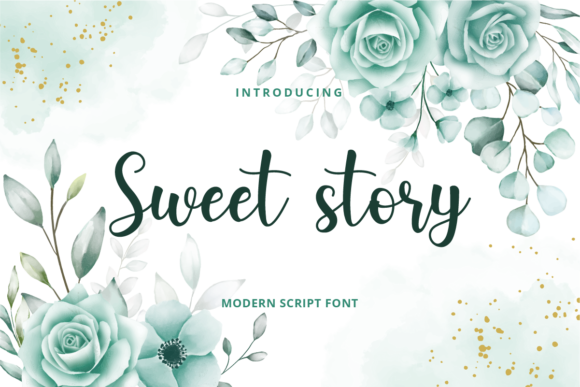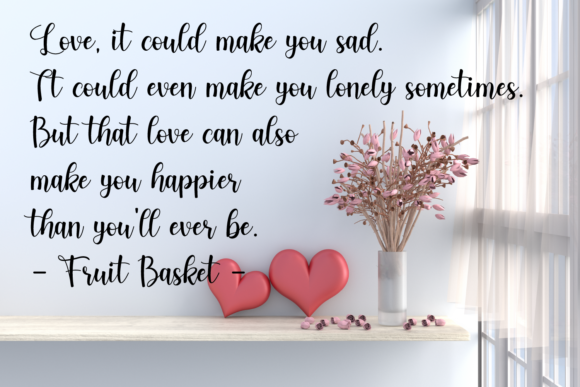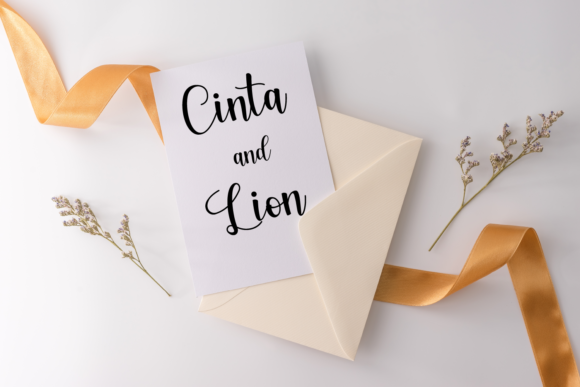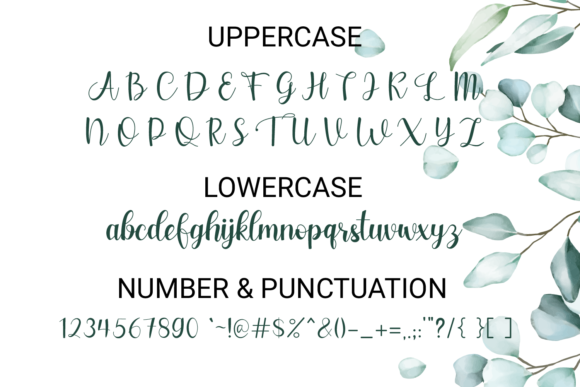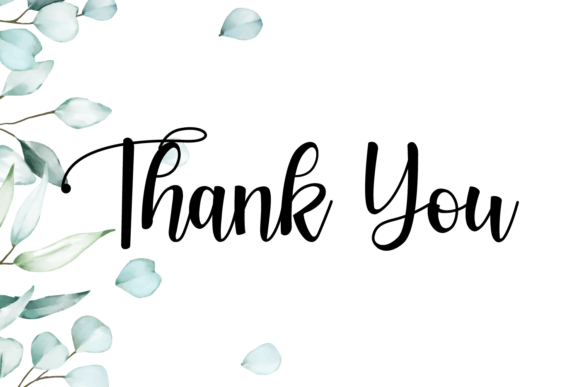
Sweet Story Font
About Sweet Story Font
Introducing “Sweet Story,” a delicate, elegant, and gracefully flowing handwritten font that will steal your heart with its beauty. Its charming style and well-balanced characters make it a perfect match for a wide variety of design projects. As you add “Sweet Story” to your most creative ideas, prepare to witness how it breathes life into them, turning them into captivating works of art!
The font’s delicate and flowing strokes give it a sense of refinement and sophistication, making it a perfect choice for elegant designs. Whether you’re working on wedding invitations, creating custom logos, or designing branding materials, “Sweet Story” adds a touch of grace and charm that elevates your work to a whole new level of beauty.
Embrace the versatility of “Sweet Story,” as it seamlessly complements various design styles and themes. From modern and minimalist to romantic and vintage, this font adapts effortlessly to your vision, adding a touch of elegance that sets your designs apart.
The beauty of “Sweet Story” lies not only in its aesthetics but also in its readability. Its well-crafted characters ensure that your message is conveyed with clarity and finesse, making it suitable for both large headlines and body text.
Unleash your creativity and explore the endless possibilities with “Sweet Story.” Whether you’re a professional designer or a passionate hobbyist, this font empowers you to create stunning designs that evoke emotions and resonate with your audience.
Let “Sweet Story” be the key to unlocking your imagination. Embrace its delicate and elegant charm, and watch as your ideas come alive with a touch of enchantment. Whether you’re working on print materials, web graphics, or crafting handmade products, “Sweet Story” will bring a sense of beauty and authenticity to every project.
So, immerse yourself in the magic of “Sweet Story” and let it become your creative companion. Allow its flowing handwritten beauty to inspire your designs and turn your creative ideas into sweet and captivating stories. With “Sweet Story” as your ally, your projects will come to life with a touch of elegance and grace that leaves a lasting impression on all who encounter them.